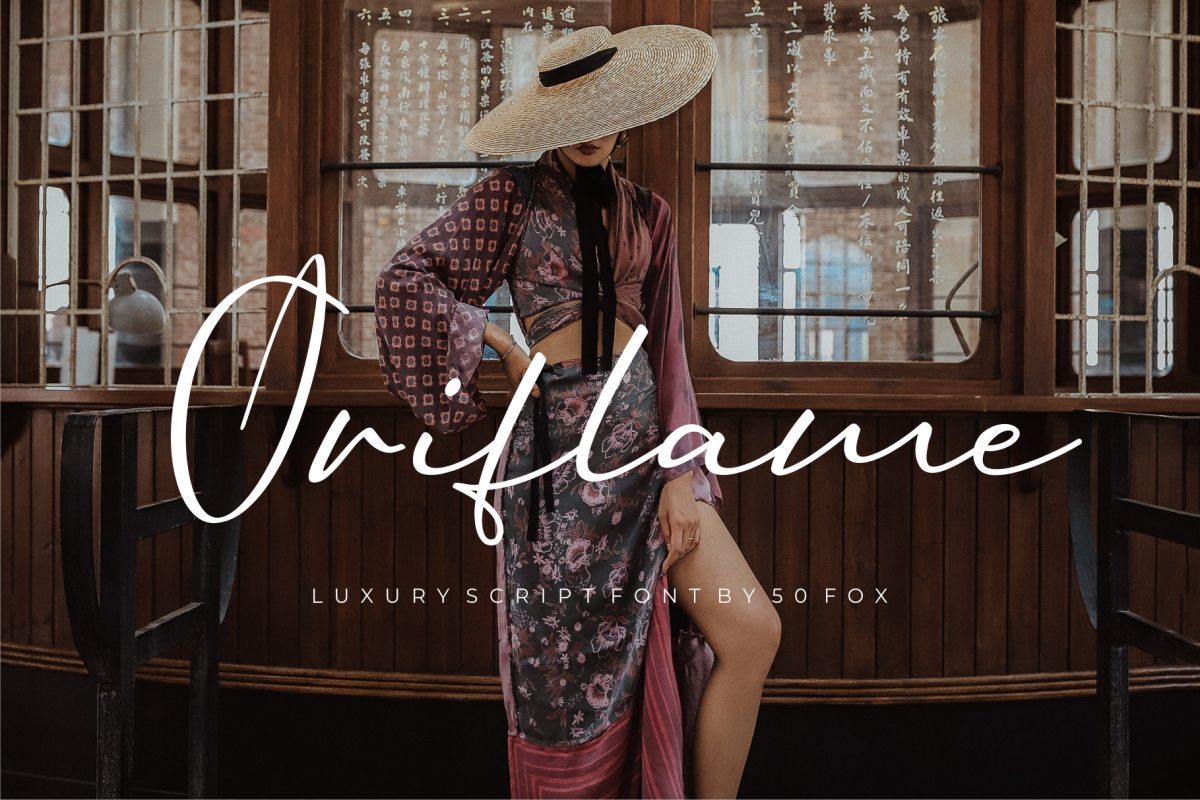
Created By 50Fox
Oriflame Script Fonts
"Oriflame Script" is a elegant handwritten font with confident and courage. This font has a very beautiful movement, dynamic and certainly very elegant.
Perfect for your logo, printed quotes, badges, insignia, packaging, headline, poster, t-shirt / apparel, greeting card, and wedding invitation, & etc